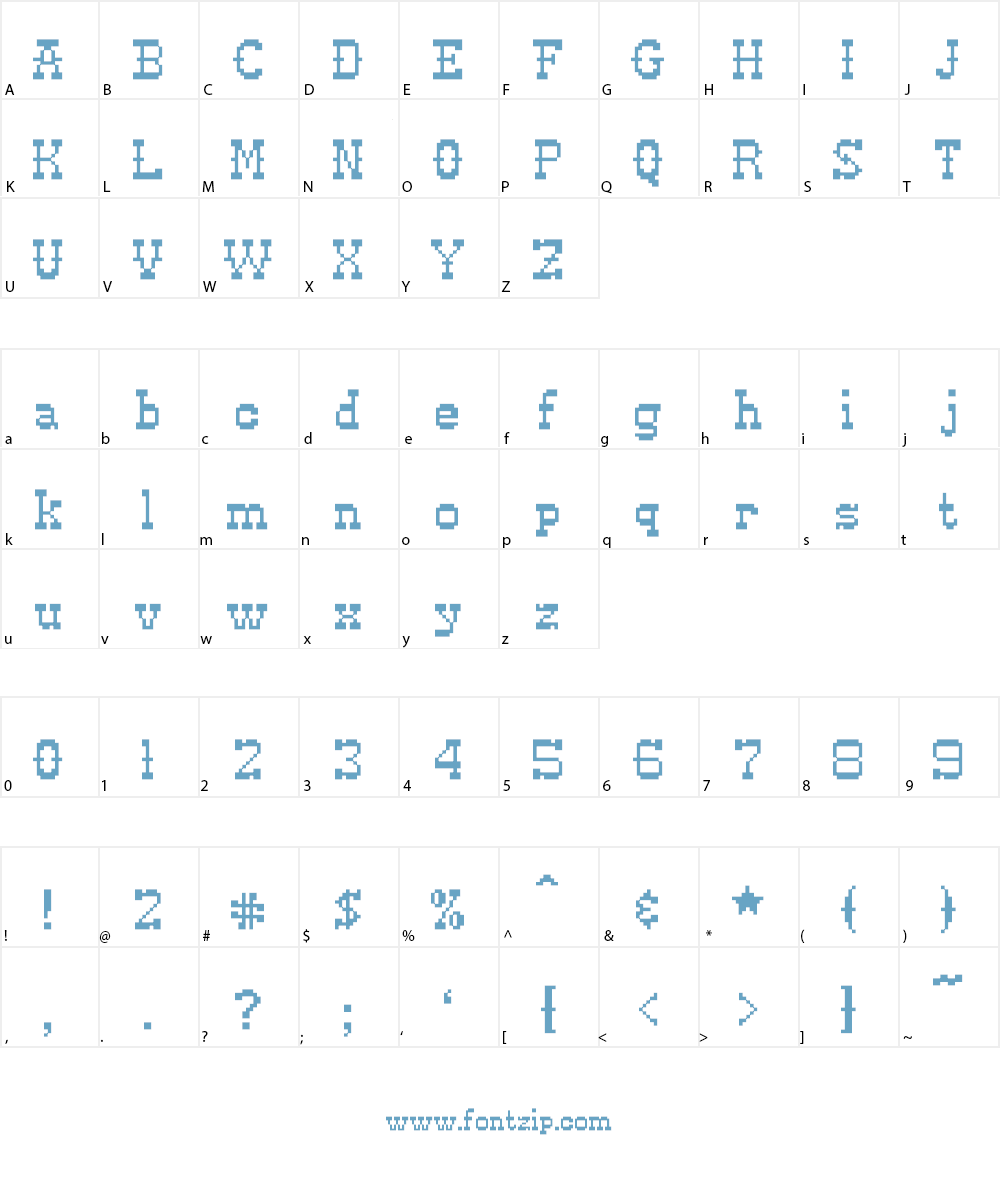
Pixel Cowboy is based the text of a number of western games in the early DOS/VGA era, such as one of the remakes of the legendary “Oregon Trail” franchise. Includes full alphabet, extended punctuation, euro.